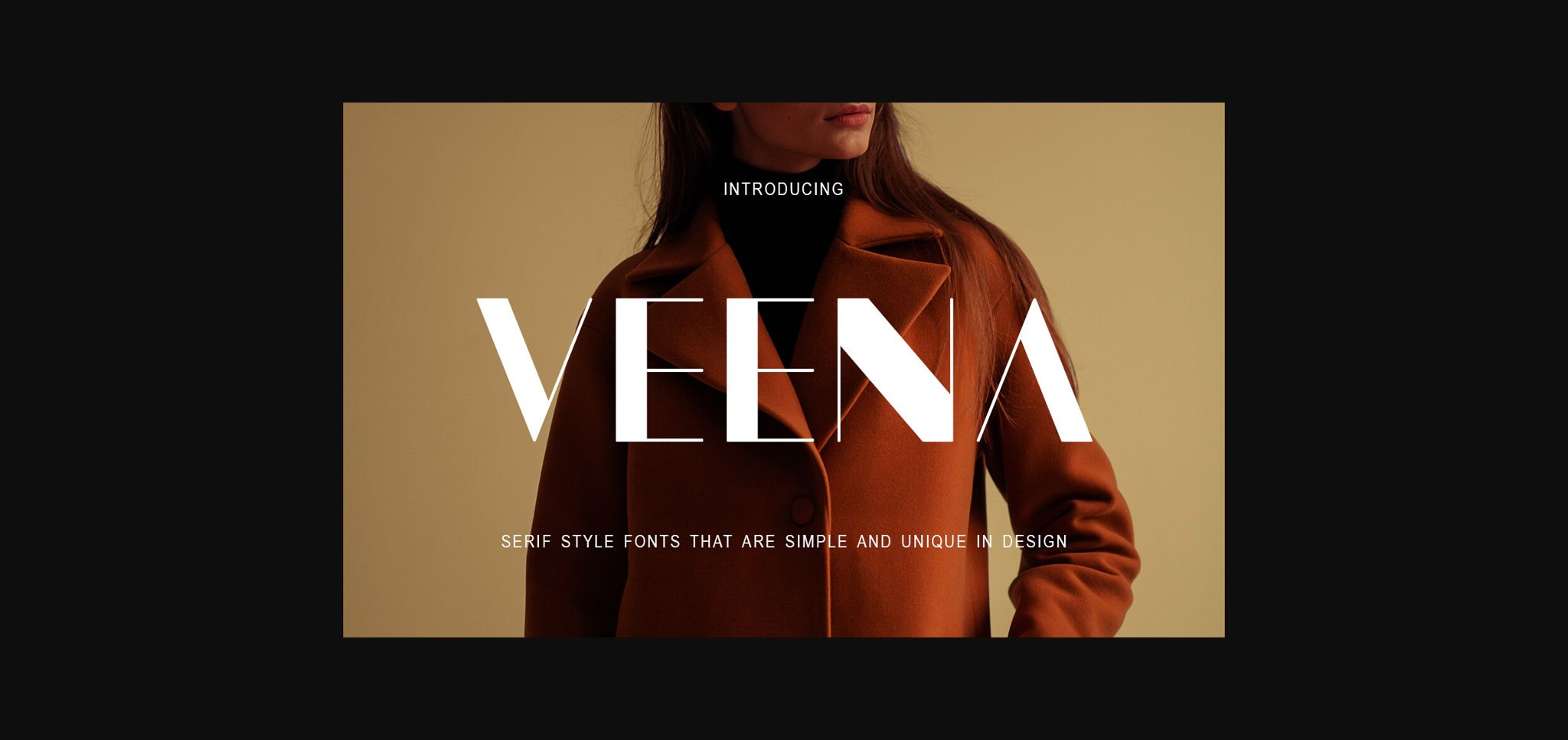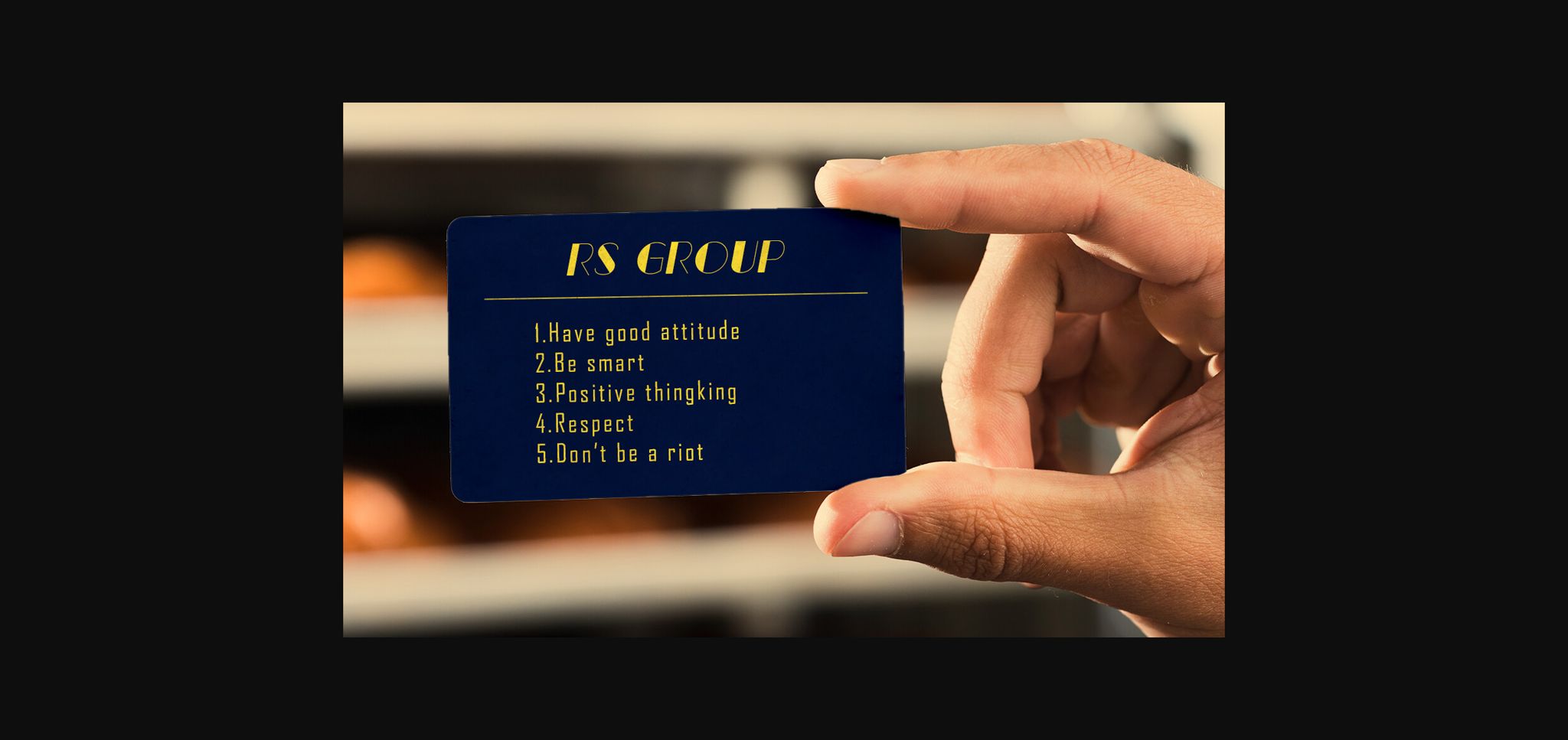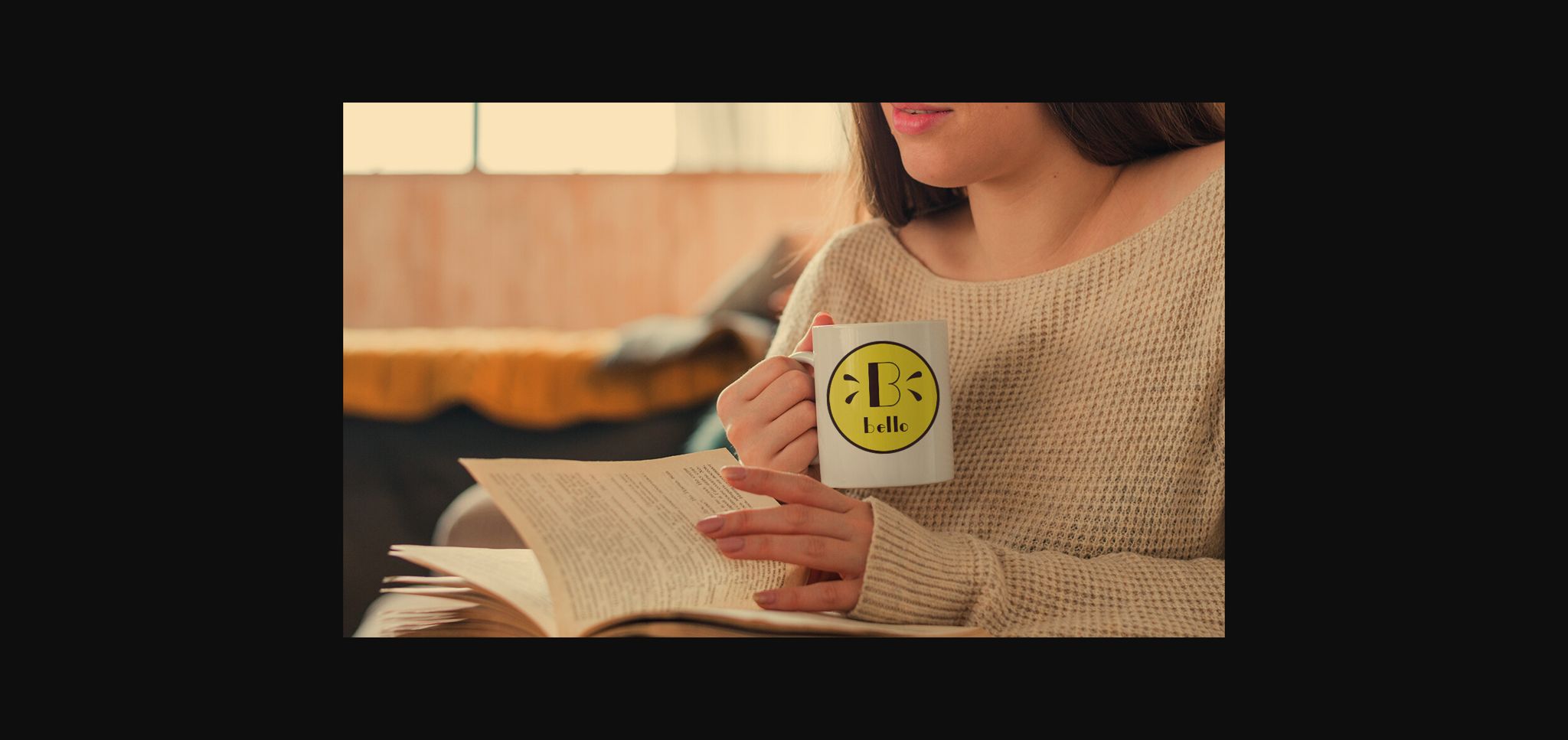
About Veena Font
Veena is a stylish, bold sans-serif font designed to make a statement. With its clean lines and strong presence, it exudes confidence and modernity. Perfect for headlines, logos, and branding projects, Veena commands attention while maintaining a sense of elegance and sophistication in any design.